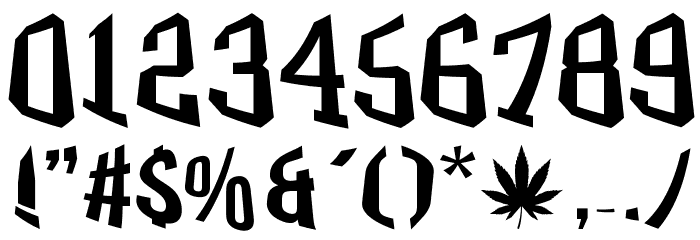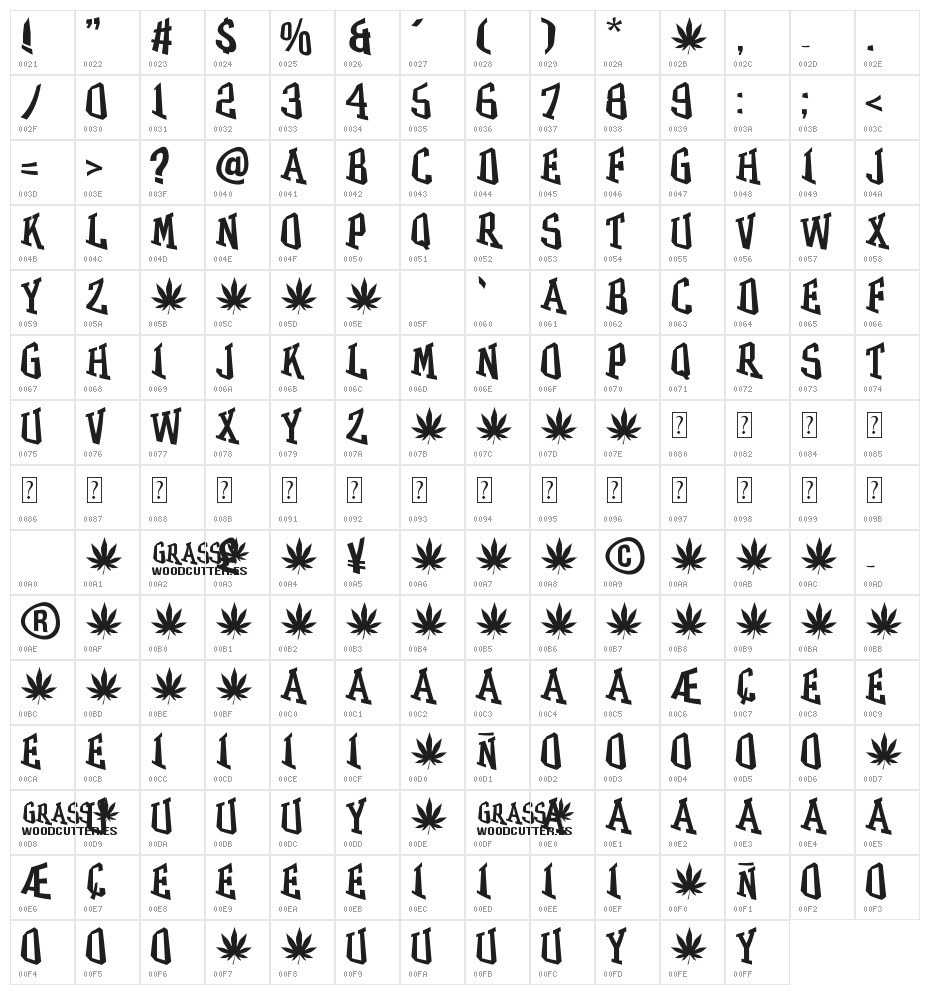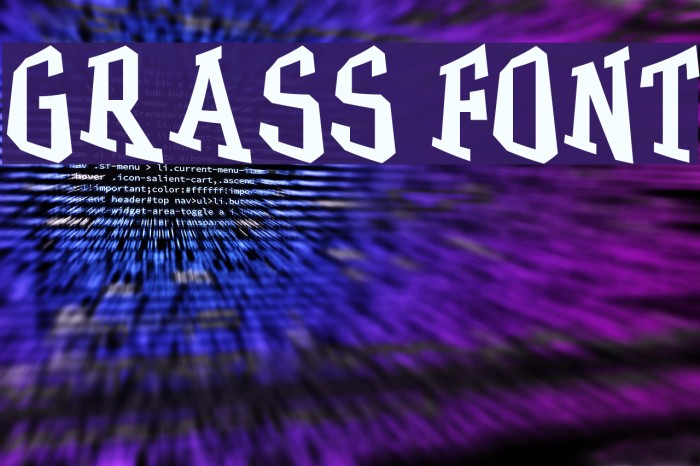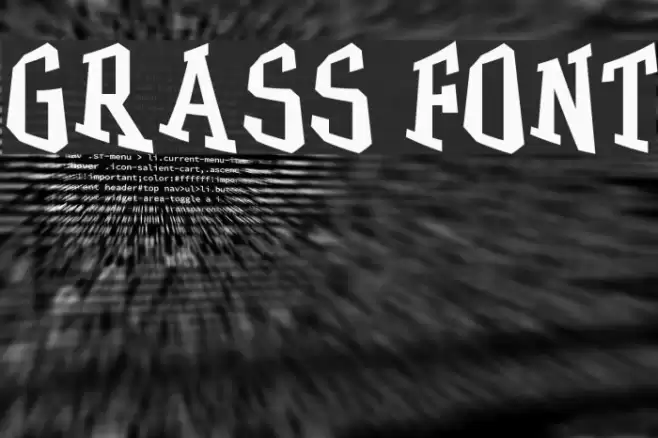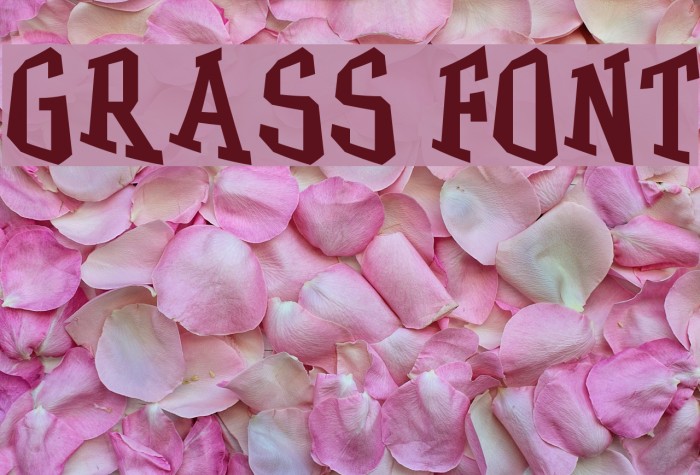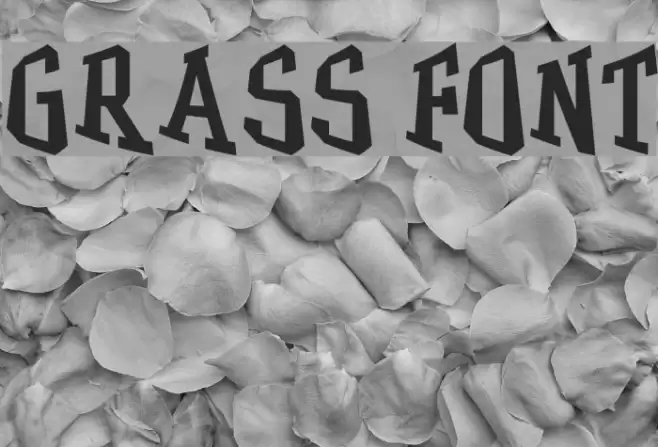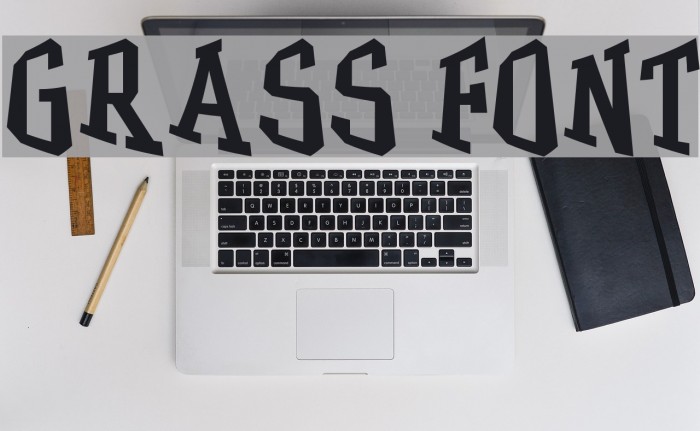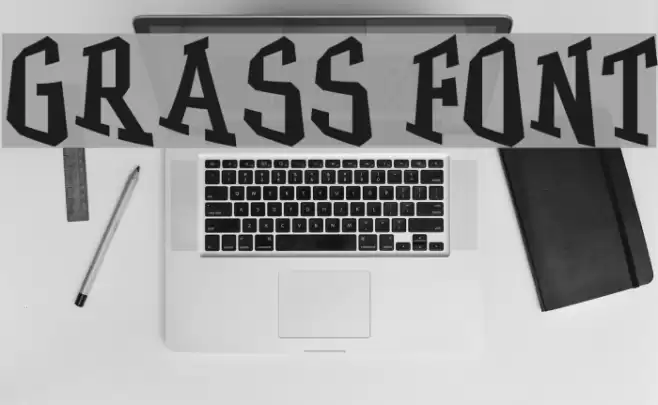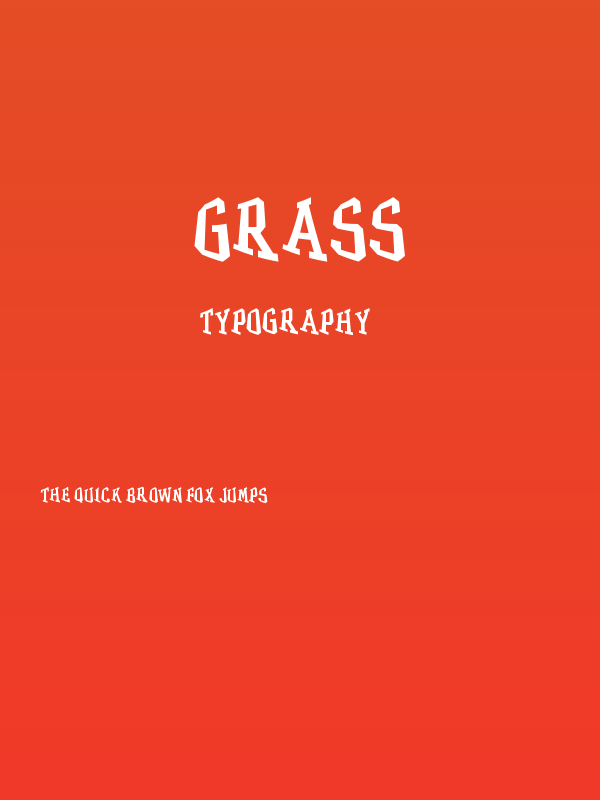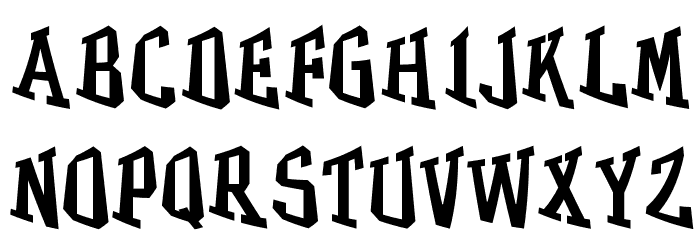
GRASS Font
GRASS Description
This font features a bold, angular design with a strong presence. The characters are sharply defined, with a distinct geometric style that gives them a modern and edgy appearance. The uppercase letters are particularly striking, with a slight slant that adds dynamism and movement. The numbers and special characters maintain this bold aesthetic, making the font suitable for attention-grabbing headlines or impactful designs. The overall look is both contemporary and slightly rebellious, perfect for projects that require a standout typeface.
Proposed ProjectsIdeal for posters, branding, album covers, and any design needing a bold statement.